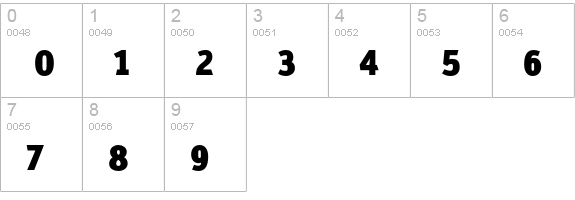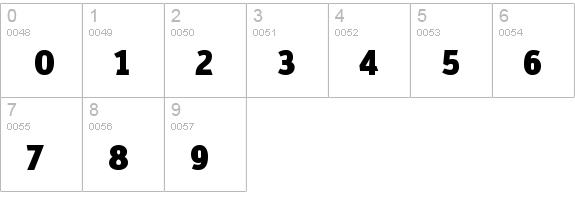
Sodium-Black Font Details
Sodium-Black is a maximum-weight, dramatic variant in the Sodium typeface family \xE2\x80\x94 well suited to maximum-impact headlines, posters, and packaging.
Introducing Sodium-Black, a sleek and sophisticated font that exudes an air of modernity and elegance. With its bold and prominent letterforms, this typeface is perfect for creating eye-catching headlines, captivating logos, and stylish branding materials. The clean lines and sharp edges of Sodium-Black lend a sense of professionalism and authority, making it an excellent choice for corporate presentations, editorial designs, and advertising campaigns. But what sets Sodium-Black apart is not just its impeccable design, but also its accessibility and affordability. This font is freely available to download at FontsMarket.com, making it a valuable asset for designers, students, and creative professionals alike. Whether you're a seasoned graphic designer or just starting out, Sodium-Black offers you the opportunity to express your creativity without breaking the bank. With its extensive character set, including uppercase and lowercase letters, numbers, and punctuation marks, Sodium-Black provides versatility and flexibility in your design projects. Its strong presence and legibility ensure that your message will be conveyed with clarity and impact. Add a touch of sophistication to your next project with Sodium-Black. Download it for free at FontsMarket.com and unlock the endless possibilities of this remarkable typeface. Elevate your designs to new heights and captivate your audience with the timeless allure of Sodium-Black.